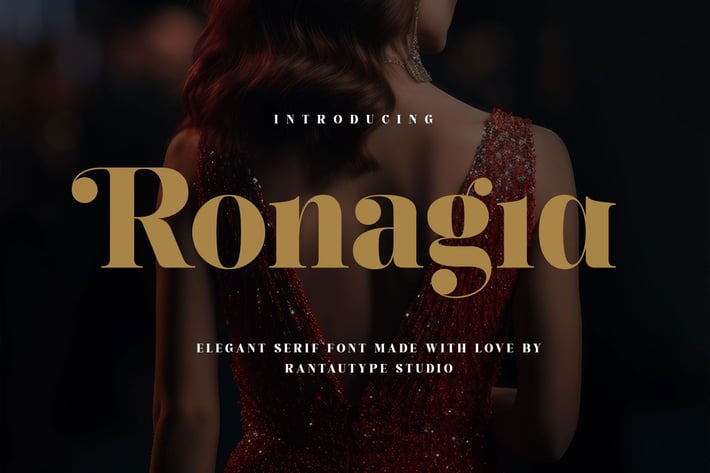
Ronagia Elegant Serif Font
Ronagia is elegant serif font inspire by luxury fashion brand. Ronagia come with bold and strong character to make your design project stand out!
Ronagia is a beautiful choice for any creative endeavor, creating elegant, modern, chic, lifestyle design such as logotype, title, cover, branding, invitations, wedding designs, display and magazine, social media posts, advertisements, printed quotes, product packaging, corporate brand, product designs, labels, photography, watermarks, special events and any other project with elegant touch.
Alternate and Ligature